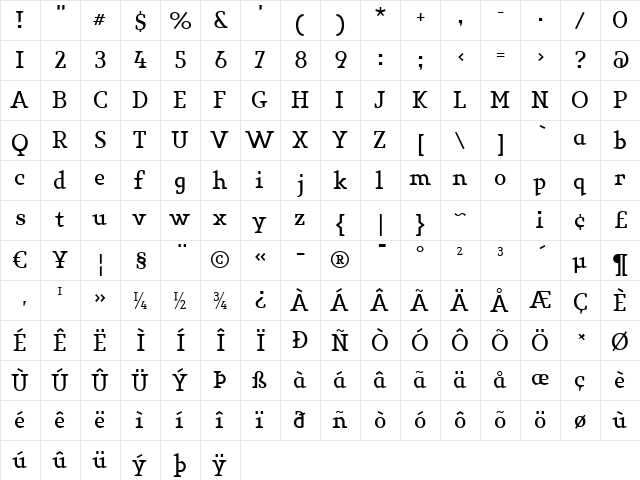
KeyLightLiningNumbers Regular
Design Context for KeyLightLiningNumbers Typeface
KeyLightLiningNumbers takes a measured approach to typography — its balanced proportions and neutral character make it a reliable workhorse for both digital and print work. Its slender proportions lend an understated elegance to any composition.